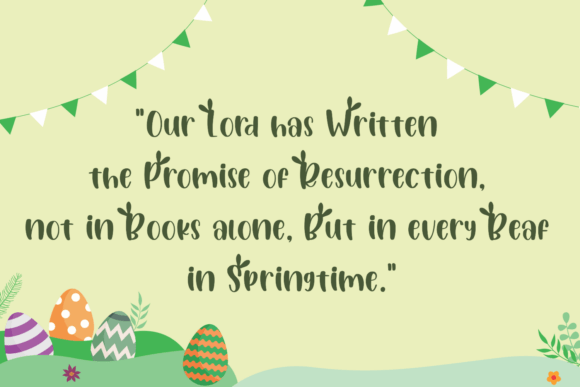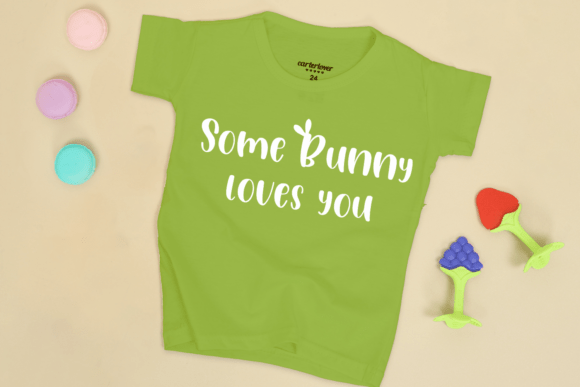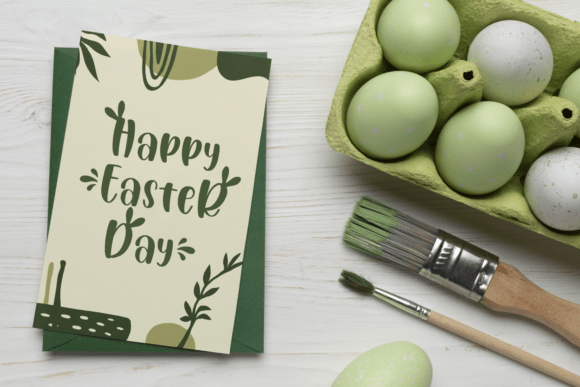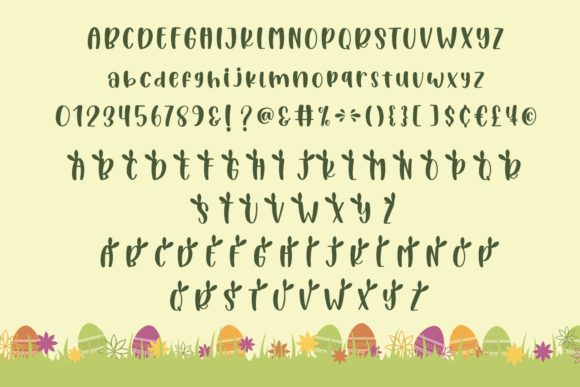
“EASTER JOY” Font: A Delightful Touch for Every Celebration
Are you looking for a font that can add a personal, handwritten touch to your holiday and seasonal projects? Look no further than the “EASTER JOY” font. This script font is perfect for crafters, designers, and DIY enthusiasts who want to elevate their invitations, decorations, and special event materials with a touch of elegance and sophistication.
A Versatile and Elegant Script Font
The “EASTER JOY” font is designed to be versatile and elegant, making it suitable for a wide range of projects and occasions. Its smooth, flowing curves and festive style make it an ideal choice for creating everything from invitations to crafts, while its crisp lines work beautifully for embroidery, Cricut projects, and more.
Perfect for Springtime and Seasonal Holidays
As its name suggests, the “EASTER JOY” font is perfectly suited for springtime and seasonal holidays. Whether you’re celebrating Easter, Spring, Christmas, Thanksgiving, or a wedding, this font is sure to bring a warm, inviting, and stylish touch to your projects. Its emphasis on seasonal celebrations makes it an ideal choice for crafters and designers who want to create special event materials that capture the spirit of the occasion.
What Makes “EASTER JOY” Font Special?
- Handwritten Touch: The “EASTER JOY” font has a personal, handwritten touch that adds a touch of elegance and sophistication to any project.
- Versatile: This script font is suitable for a wide range of projects and occasions, from Easter and Spring to Christmas and Thanksgiving.
- Elegant: The smooth, flowing curves and festive style of the “EASTER JOY” font make it an ideal choice for creating everything from invitations to crafts.
- Crisp Lines: The font’s crisp lines work beautifully for embroidery, Cricut projects, and more.
Ideas for Using “EASTER JOY” Font
The “EASTER JOY” font is perfect for a wide range of projects, including:
- Invitations: Create beautiful, personalized invitations for Easter, Christmas, weddings, and other special occasions.
- Crafts: Add a touch of elegance and sophistication to your Easter, Spring, and Christmas crafts.
- Decorations: Use the “EASTER JOY” font to create festive decorations for your home or office.
- Embroidery: The font’s crisp lines work beautifully for embroidery projects, such as personalized Easter eggs, Christmas stockings, and more.
- Cricut Projects: Use the “EASTER JOY” font to create custom vinyl signs, iron-on designs, and more.
Why Choose “EASTER JOY” Font?
If you’re looking for a font that can add a personal, handwritten touch to your holiday and seasonal projects, the “EASTER JOY” font is the perfect choice. Its versatility, elegance, and festive style make it an ideal choice for crafters, designers, and DIY enthusiasts who want to elevate their invitations, decorations, and special event materials.
Get Creative with “EASTER JOY” Font
In conclusion, the “EASTER JOY” font is a delightful touch for every celebration. Its versatility, elegance, and festive style make it an ideal choice for crafters, designers, and DIY enthusiasts who want to elevate their invitations, decorations, and special event materials. With its smooth, flowing curves and crisp lines, this font is perfect for creating everything from invitations to crafts, and its emphasis on springtime and seasonal holidays makes it a must-have for anyone who loves to celebrate.